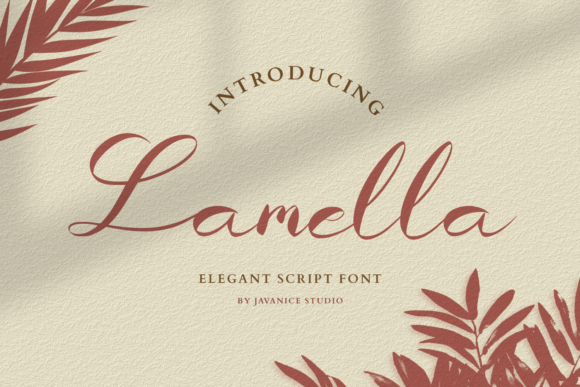
Get ready to enchant your Instagram posts with the captivating allure of Lamella Font, an exquisite script font that will elevate your content to new heights of beauty and elegance. Javanicestudio, the mastermind behind this masterpiece, has meticulously crafted each letterform with a delicate touch and an undeniable sense of joy.
Picture this: your Instagram feed transformed into a symphony of captivating words, each rendered in the flowing, graceful lines of Lamella. Your followers will be mesmerized by the enchanting dance of characters, drawn into the world you create with every post.
But Lamella's allure extends far beyond its visual splendor. This versatile script font empowers you to express your creativity in countless ways. From the intimate whispers of wedding invitations to the heartfelt sentiments of greeting cards, Lamella adds a touch of romance and personalization to every design it graces.
Whether you're a seasoned designer or simply seeking to infuse your Instagram presence with a touch of elegance, Lamella Font is the perfect choice. Its charming spirit and captivating beauty will leave an unforgettable mark on your audience, turning every post into a work of art that speaks volumes without uttering a single word.